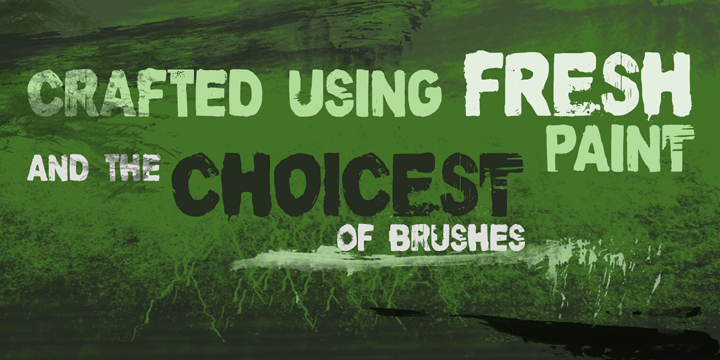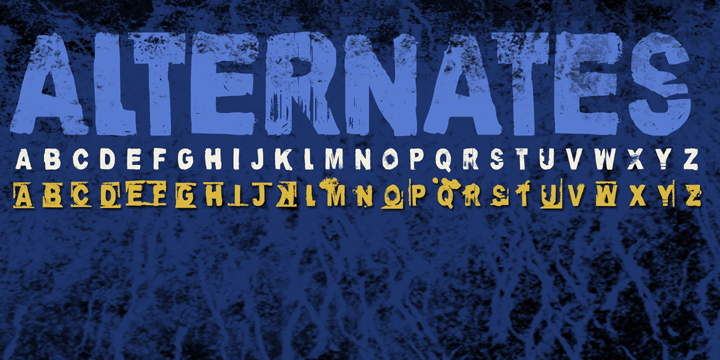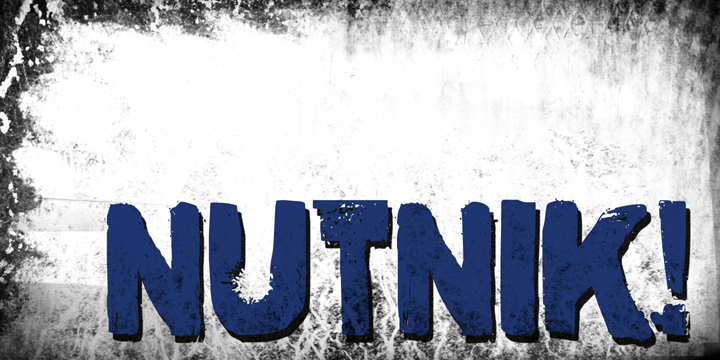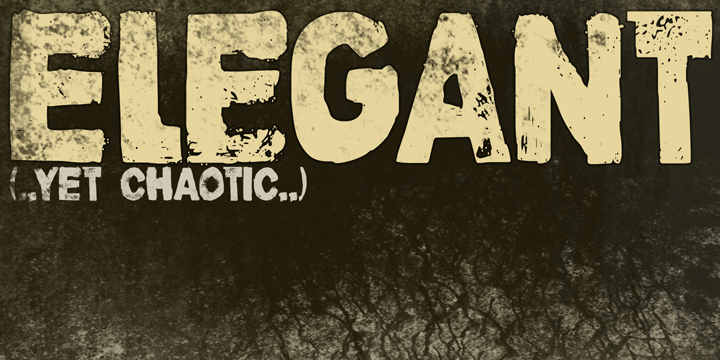
Nutnik is a grunge font family. This typeface has three styles and was published by Hanoded.
Nutnik was made using cut out cardboard letters, black paint and some brushes. The result is a highly legible, yet grungy font. It comes with all the diacritics you could possibly wish for and stylistic alternates for the lower case letters.